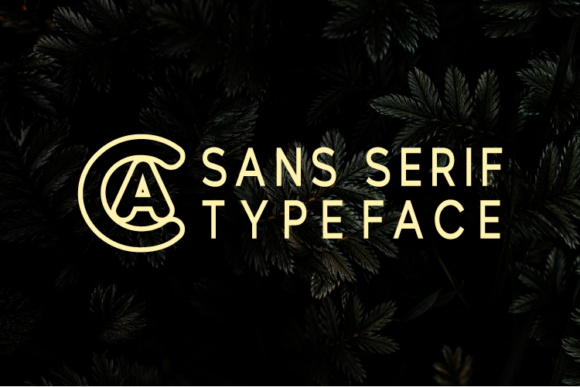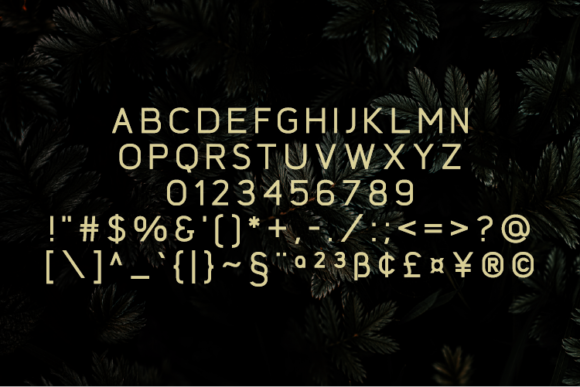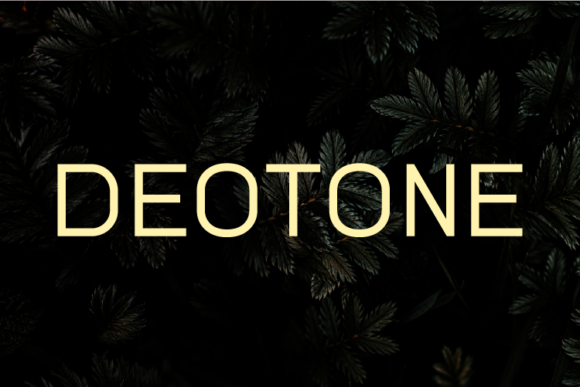
Discover the Elegance of Deotone Font: A Simple yet Powerful Sans Serif Typeface
In the world of typography, fonts play a crucial role in conveying messages, expressing emotions, and creating visual identities. For designers and crafters, finding the perfect font that balances simplicity, elegance, and versatility can be a daunting task. However, if you’re looking for a typeface that embodies these qualities, look no further than the Deotone Font. In this article, we’ll explore the features, benefits, and uses of Deotone, and why it’s becoming a favorite among designers and crafters alike.
What is Deotone Font?
Deotone is a simple and casual sans serif font that boasts an undeniably clean feel. Its neat and beautiful arrangement of letters makes it an outstanding choice for both formal and non-formal designs. The font’s minimalist approach to typography ensures that it remains legible and readable, even at smaller font sizes. This makes Deotone an excellent option for body text, headings, and titles.
Key Features of Deotone Font
- Clean and Simple Design: Deotone’s sans serif design ensures that the font remains clean and uncluttered, making it perfect for modern designs.
- High Legibility: The font’s clear and concise letterforms ensure that text remains readable, even at smaller font sizes.
- Versatile: Deotone can be used in a variety of design contexts, from formal and professional to casual and creative.
- Elegant and Sophisticated: Despite its simplicity, Deotone exudes an air of elegance and sophistication, making it perfect for high-end designs.
Benefits of Using Deotone Font
So, why should designers and crafters choose Deotone Font for their projects? Here are just a few benefits:
- Easy to Read: Deotone’s clear and concise letterforms ensure that text is easy to read, reducing eye strain and improving user experience.
- Boosts Visual Appeal: The font’s elegant and sophisticated design ensures that text stands out, adding visual appeal to any design.
- Flexible: Deotone can be used in a variety of design contexts, from print materials to digital platforms.
- Time-Saving: With Deotone, designers and crafters can save time searching for the perfect font, and focus on creating stunning designs.
Uses of Deotone Font
Deotone Font is a versatile typeface that can be used in a variety of design contexts, including:
- Print Materials: Business cards, brochures, posters, and flyers.
- Digital Platforms: Websites, social media graphics, and email marketing campaigns.
- Branding and Identity: Logos, letterheads, and packaging designs.
- Creative Projects: Artistic designs, illustrations, and graphics.
In conclusion, Deotone Font is a simple yet powerful sans serif typeface that offers a unique combination of elegance, versatility, and legibility. Its clean and simple design makes it perfect for modern designs, while its elegant and sophisticated feel ensures that text stands out. Whether you’re a designer or crafter, Deotone is an excellent choice for any project. So, why not give Deotone a try and experience the benefits of this amazing font for yourself?
With Deotone Font, you can elevate your designs, improve user experience, and create visually stunning text that engages and inspires. So, don’t wait – discover the elegance of Deotone Font today and take your designs to the next level!